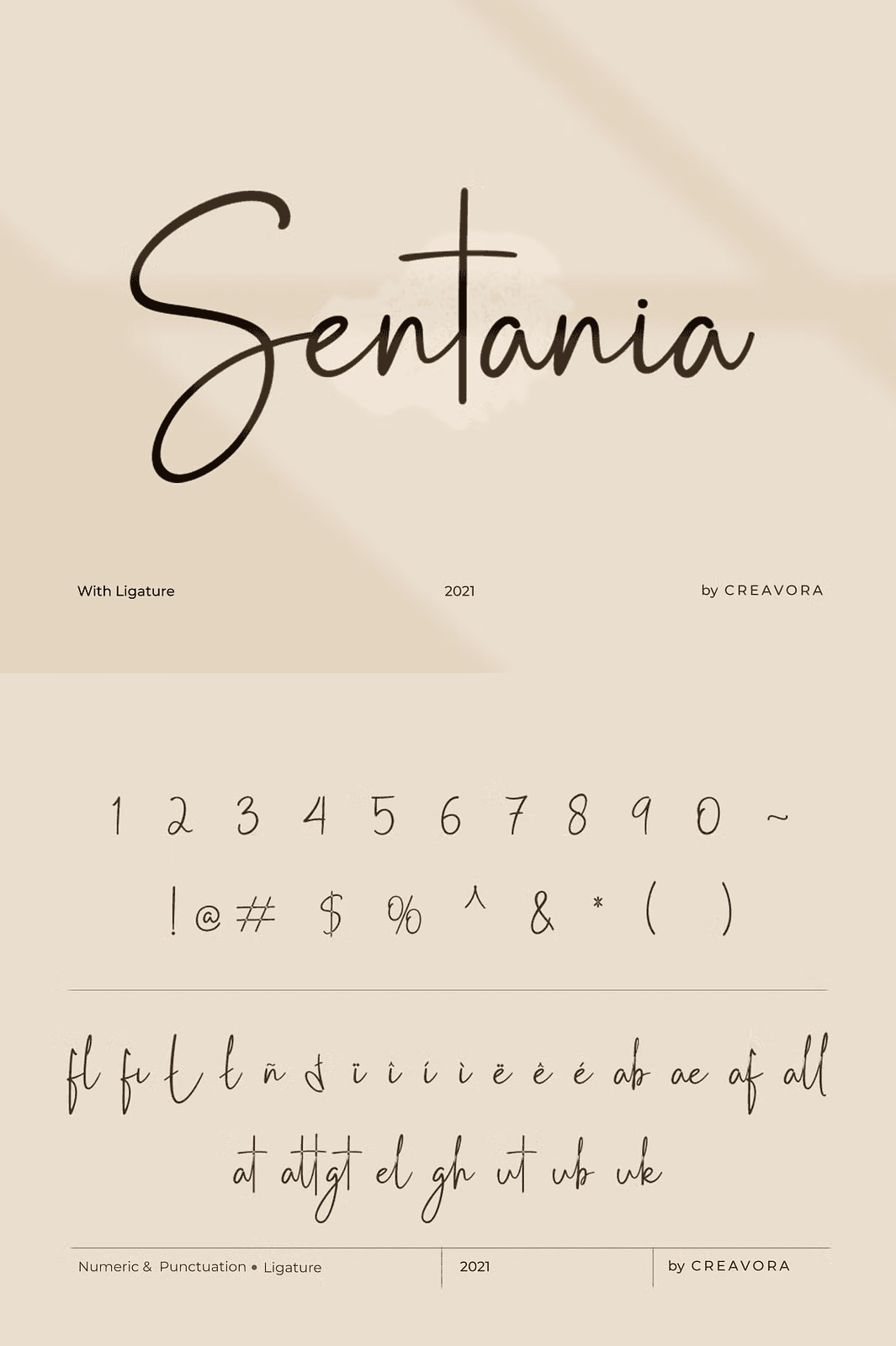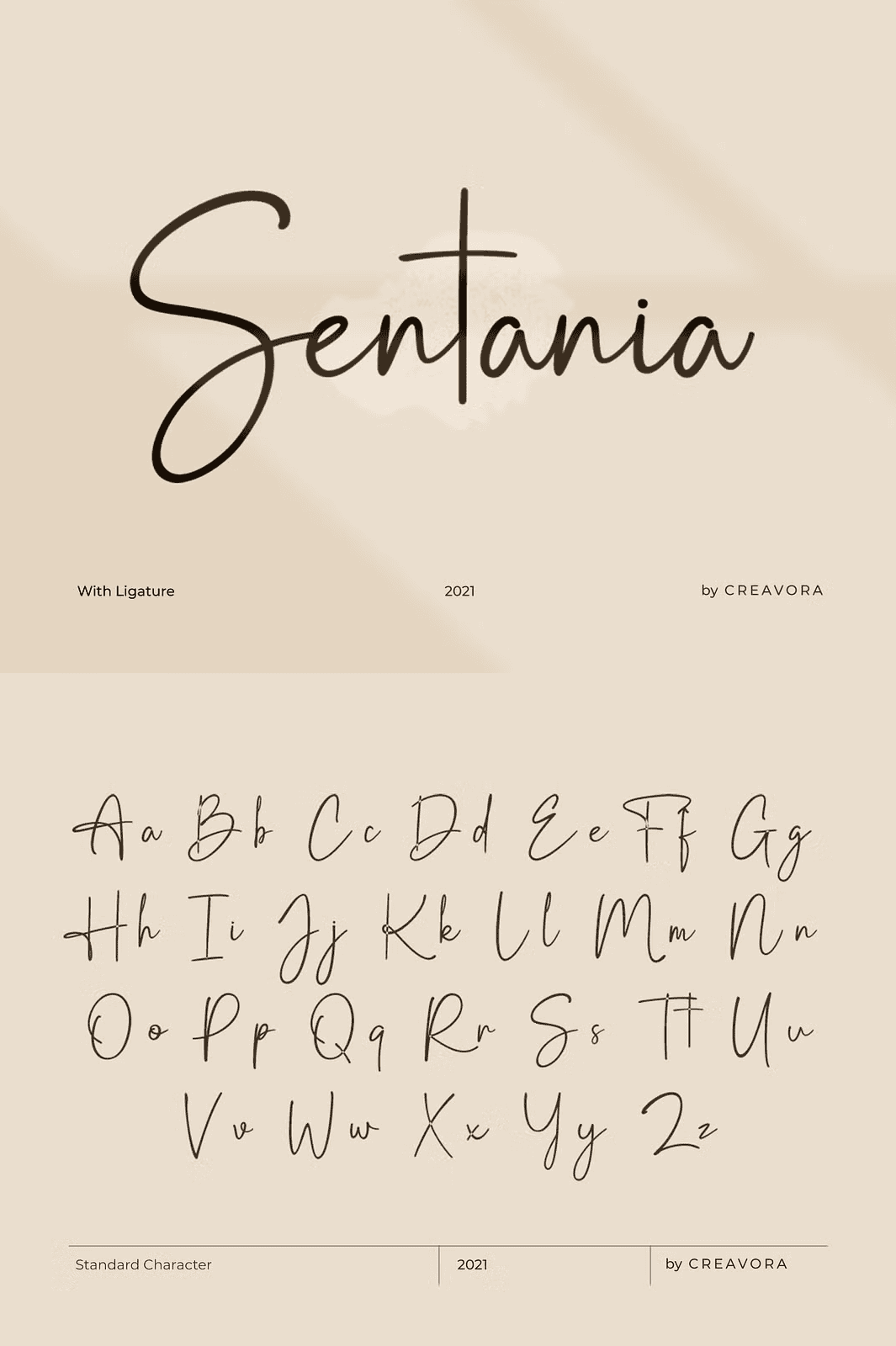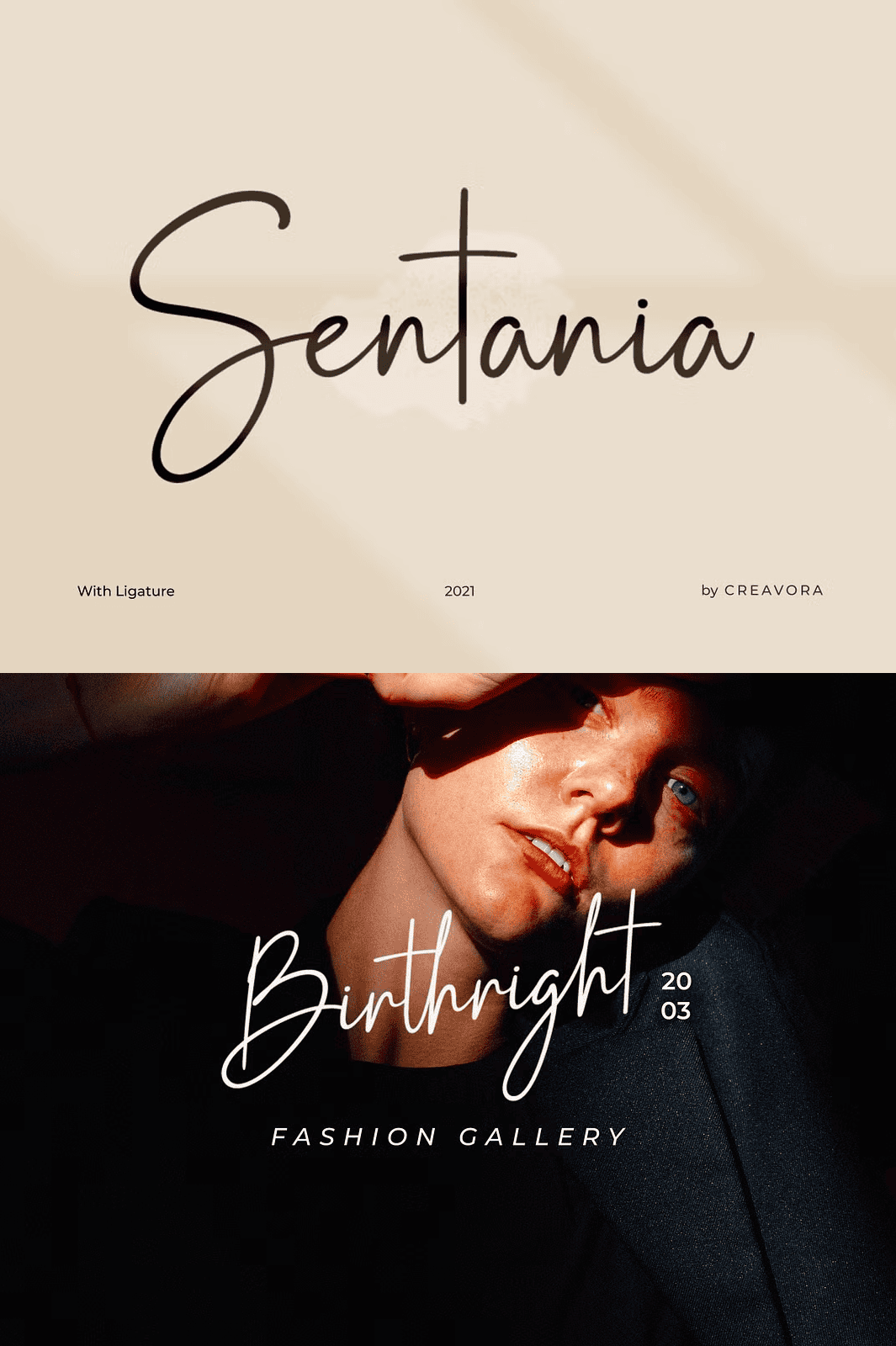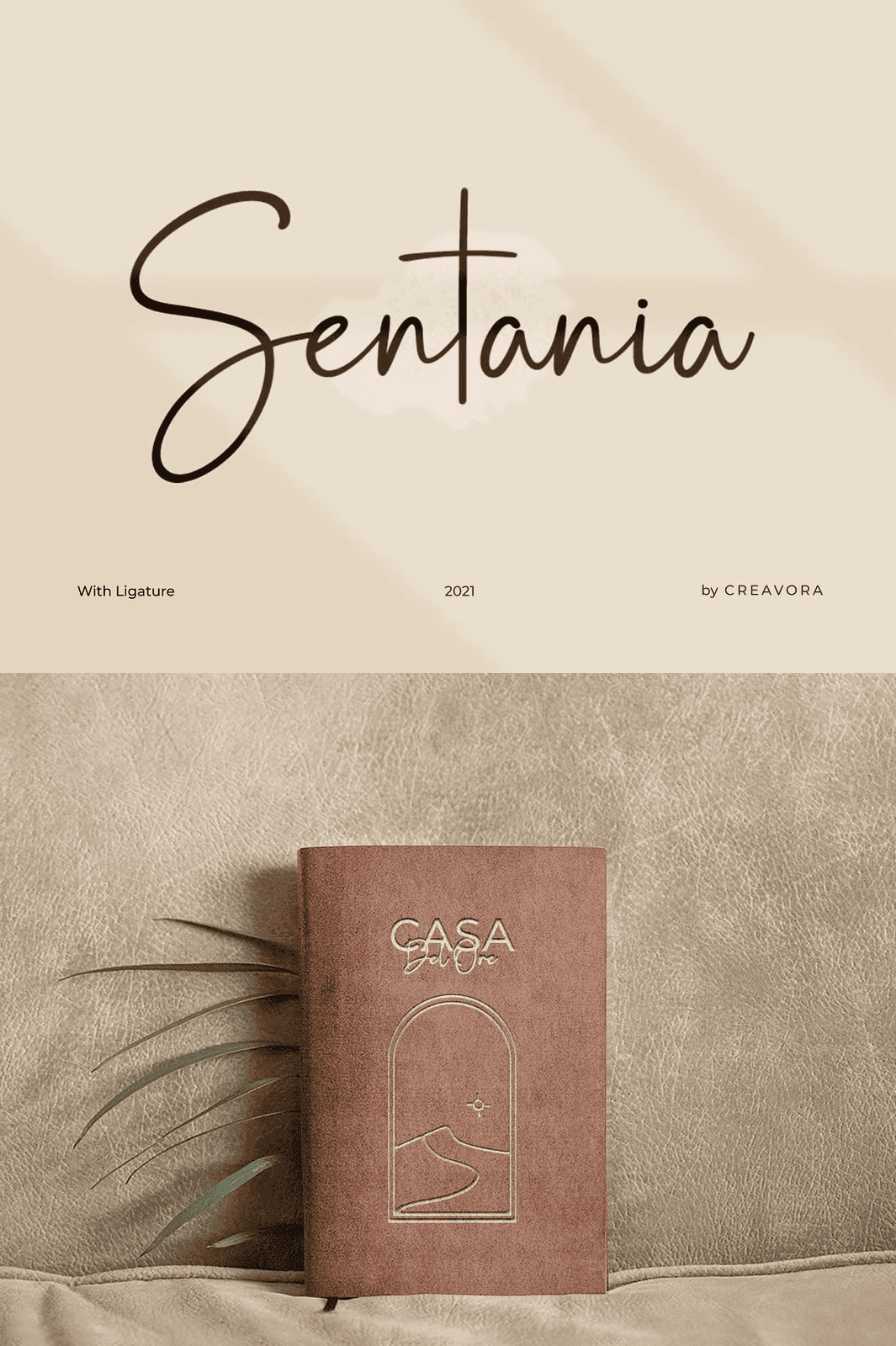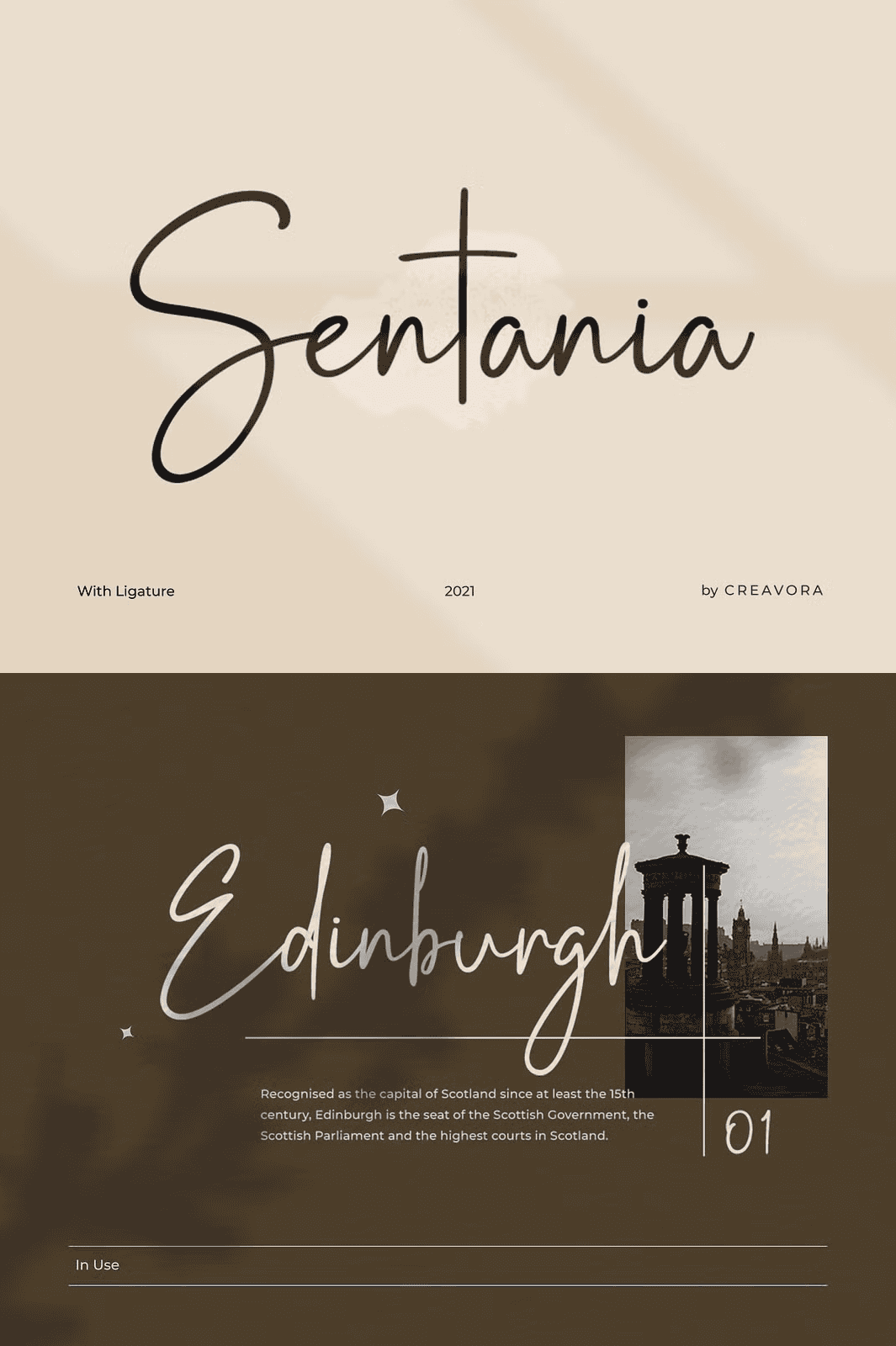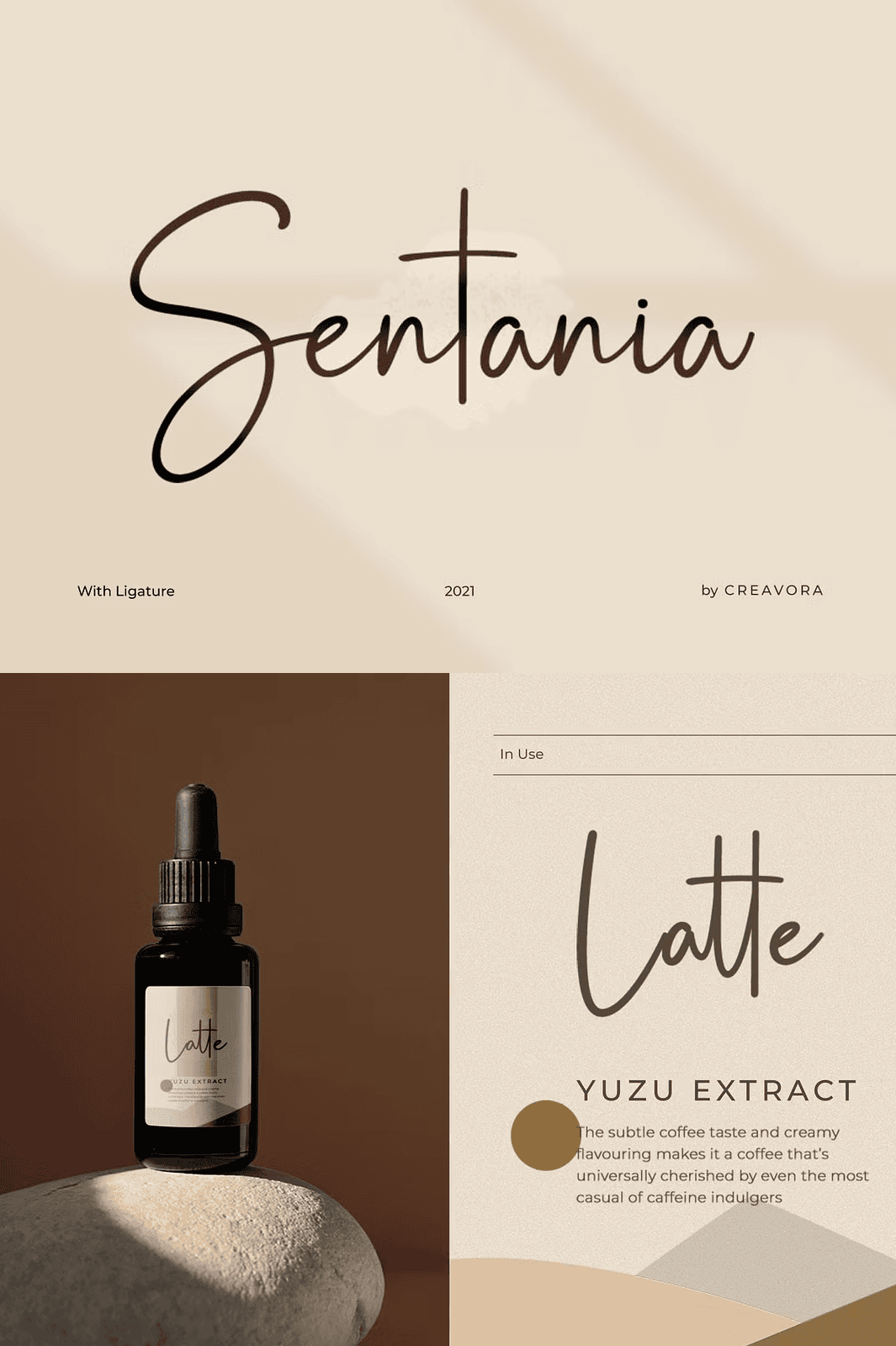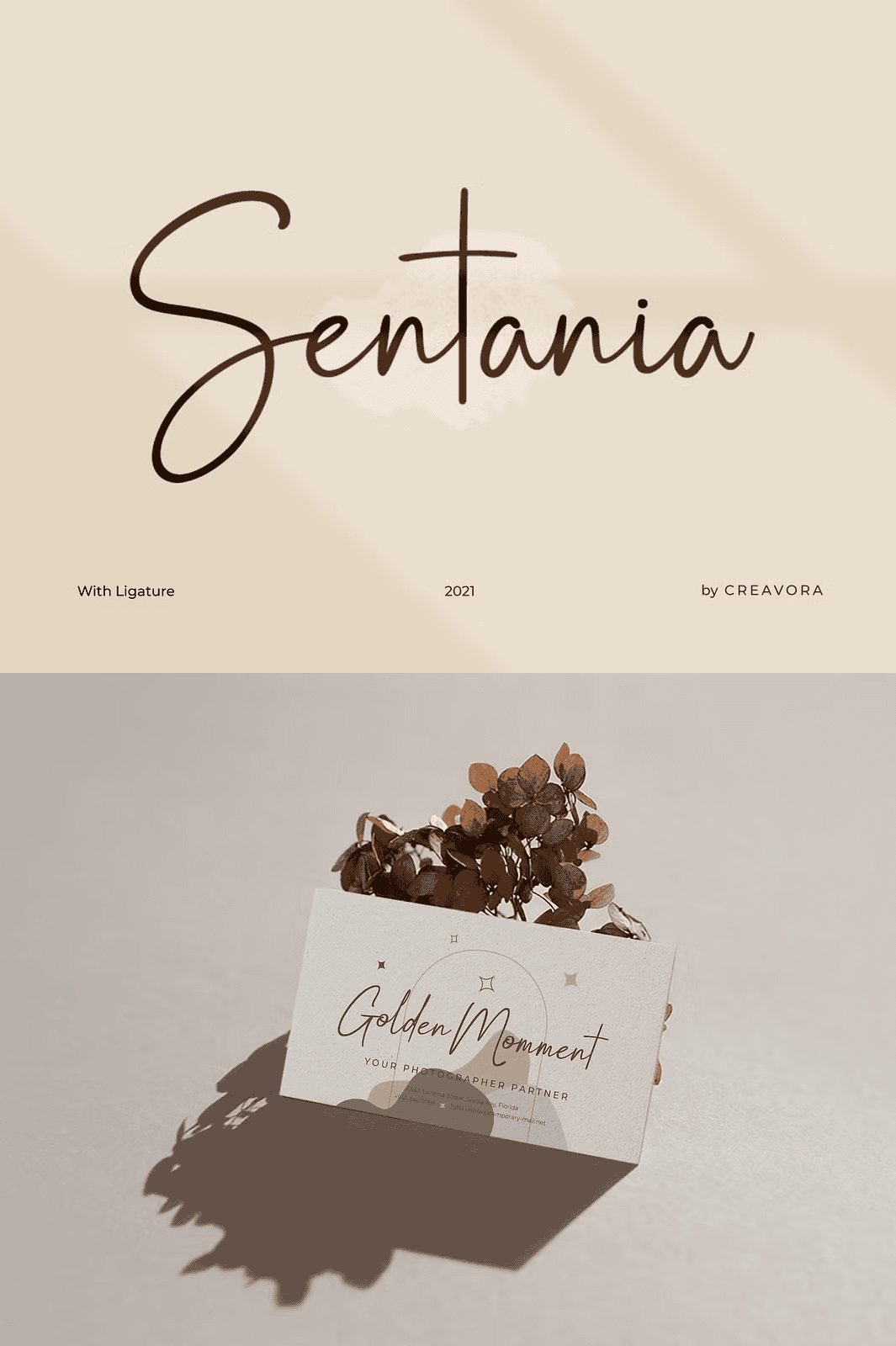
Sentania – Handwriting Font
Embrace the Art of Effortless Expression with Sentania
Unleash your creativity with **Sentania**, a bold yet graceful handwriting font designed for those who value authenticity, readability, and visual impact. This isn’t just another script font it’s a statement of personality, crafted to stand out with natural flow and confident rhythm. Whether you’re designing a vibrant social media post, crafting an elegant brand identity, or creating standout headlines, Sentania delivers charm, clarity, and versatility in every character.
Its effortlessly casual structure makes it ideal for both busy compositions and minimalist designs. It thrives on complex backgrounds without losing legibility, yet commands attention as a standalone headline with understated elegance. Built with precision and soul, Sentania redefines what a handwriting font can be modern, inclusive, and endlessly adaptable.
Why Designers Choose Sentania for Impactful Projects
Sentania breaks the mold of traditional handwritten fonts by combining the warmth of calligraphic strokes with the clarity required for real-world applications. You’ll notice the seamless transitions between letters, the balanced spacing, and the intuitive flow all carefully refined to ensure readability without sacrificing beauty.
Designed for Real Creators, Real Workflows
Unlike many fonts that require special features or additional plugins, Sentania works exactly as intended right out of the box. No extra steps. No confusion. No delays. The font supports:
– Full uppercase and lowercase letters
– Numerals, punctuation marks, and special characters
– Multilingual character sets for global reach
– Ligatures and contextual alternates (for enhanced flow)
This means you can focus on your creative vision, not technical hurdles. Whether you’re a freelance designer, a small business owner, or a content creator, Sentania empowers you to produce polished, professional work faster.
Transform Your Projects Today — Versatility Meets Style
Sentania shines in a wide range of applications:
– **Social media graphics** – Stand out with personalized quotes and captions
– **Branding & logos** – Add a human touch to your business identity
– **Wedding invitations & event cards** – Elevate with a warm, personal feel
– **Website headers & banners** – Make an instant impression
– **Blog titles and cover images** – Grab attention and boost engagement
Its casual elegance makes it perfect for lifestyle brands, boutique studios, wedding planners, and digital creators who want to connect with audiences on a personal level.
Join the Creators Revolution — Use Sentania in Your Next Masterpiece
From concept to completion, Sentania gives you the freedom to focus on storytelling. It’s not just about looking good it’s about making your message matter. Every swoop, curve, and dash is designed to enhance meaning, convey emotion, and leave a lasting impression.